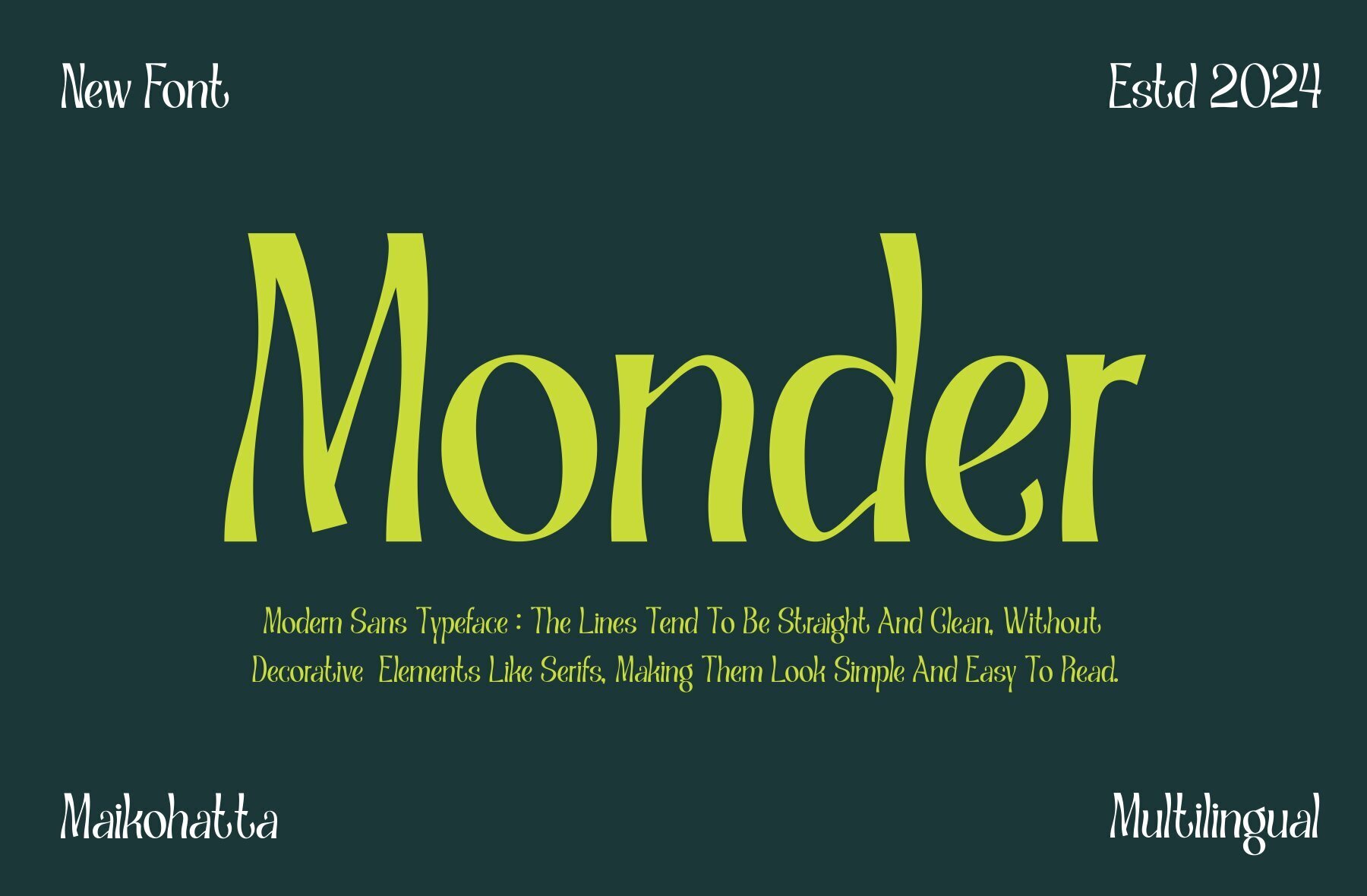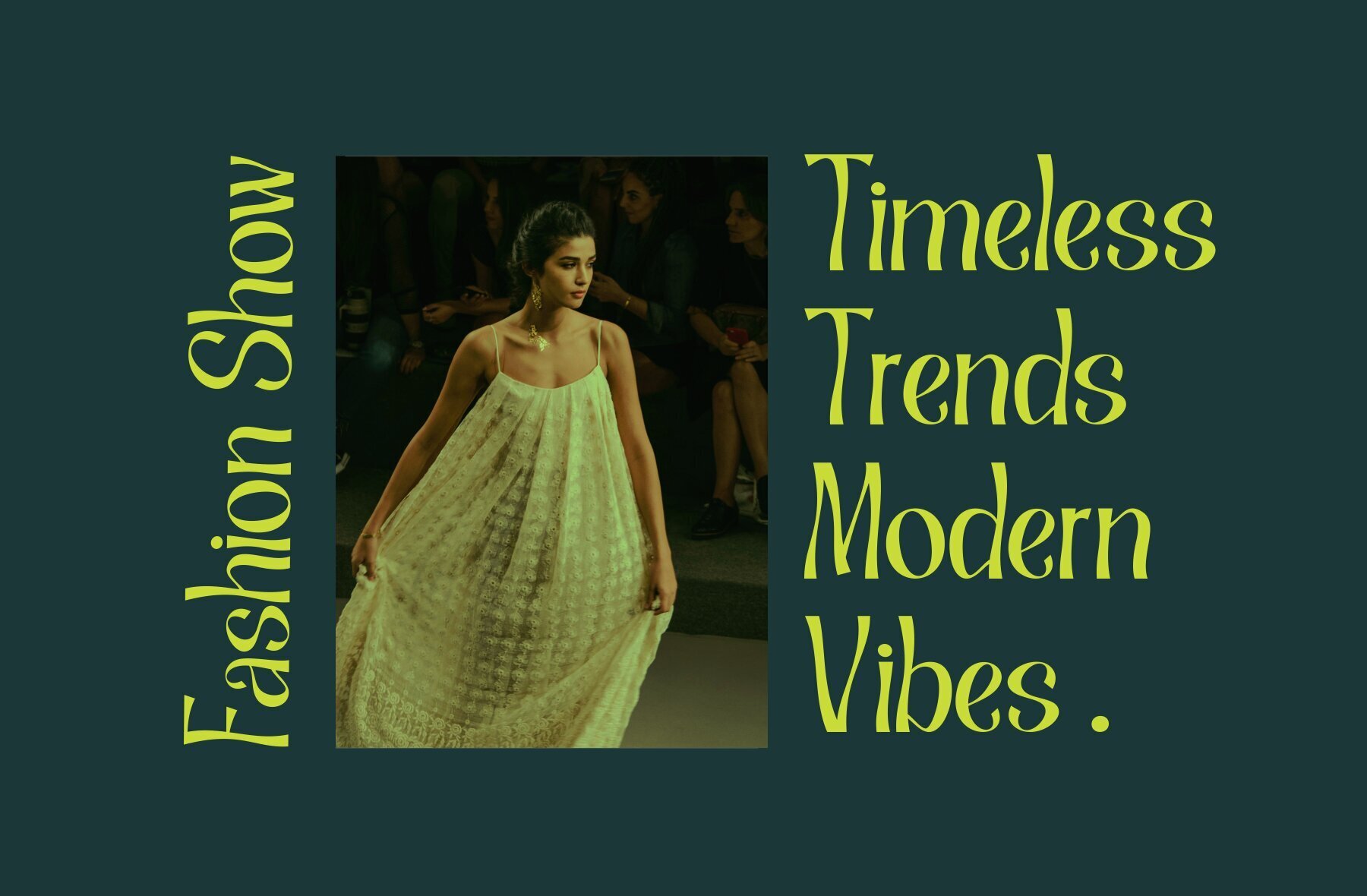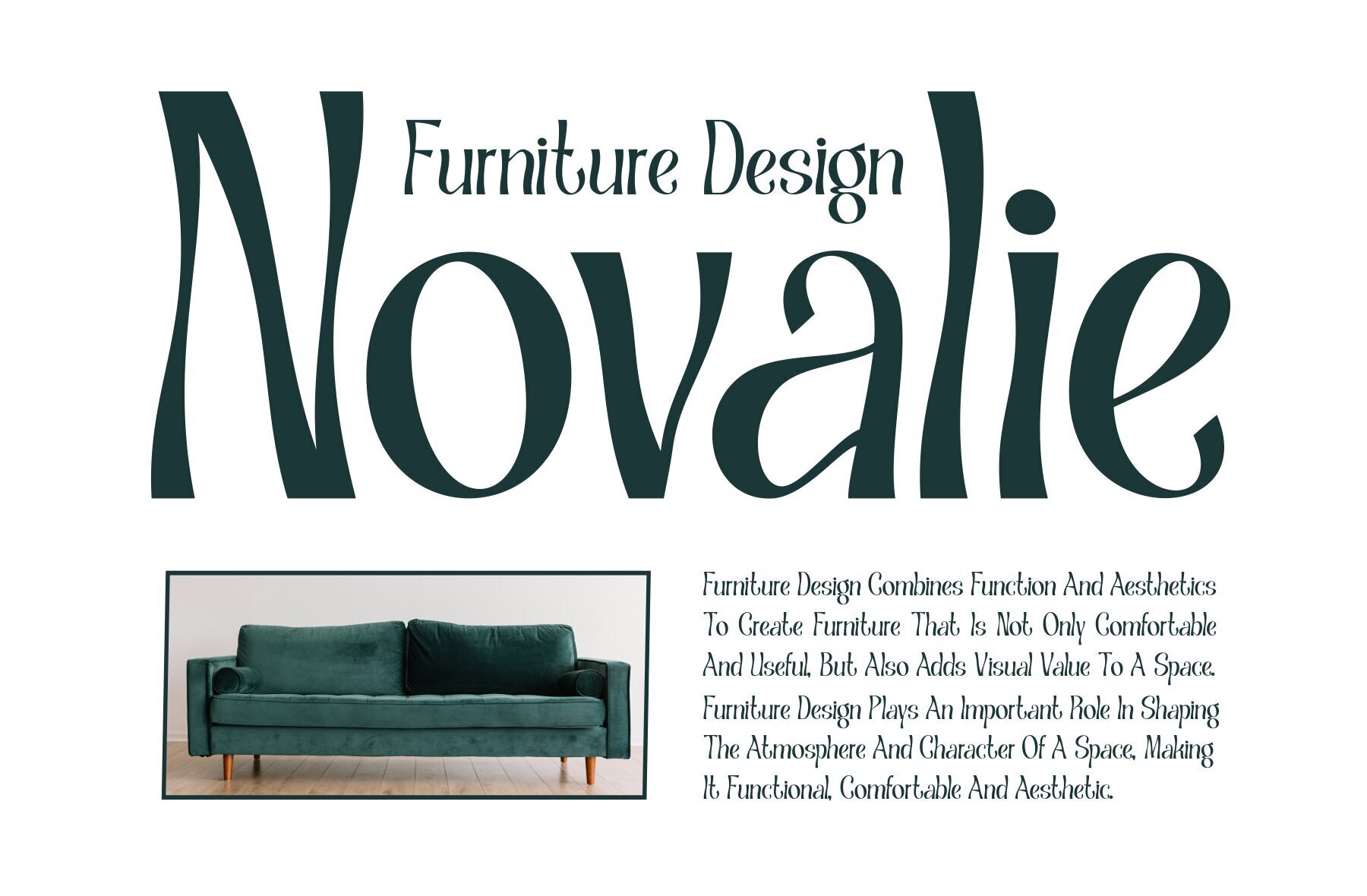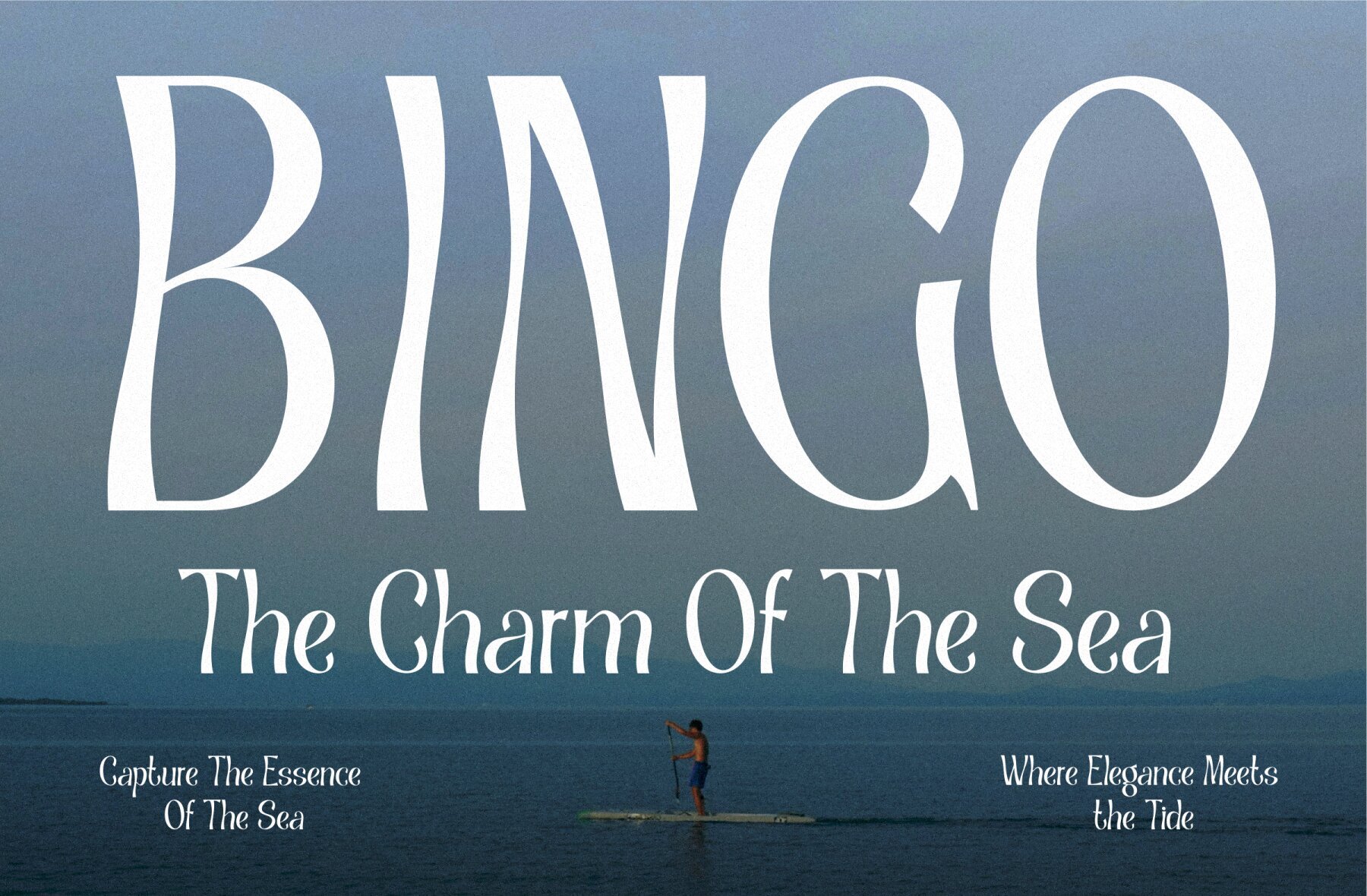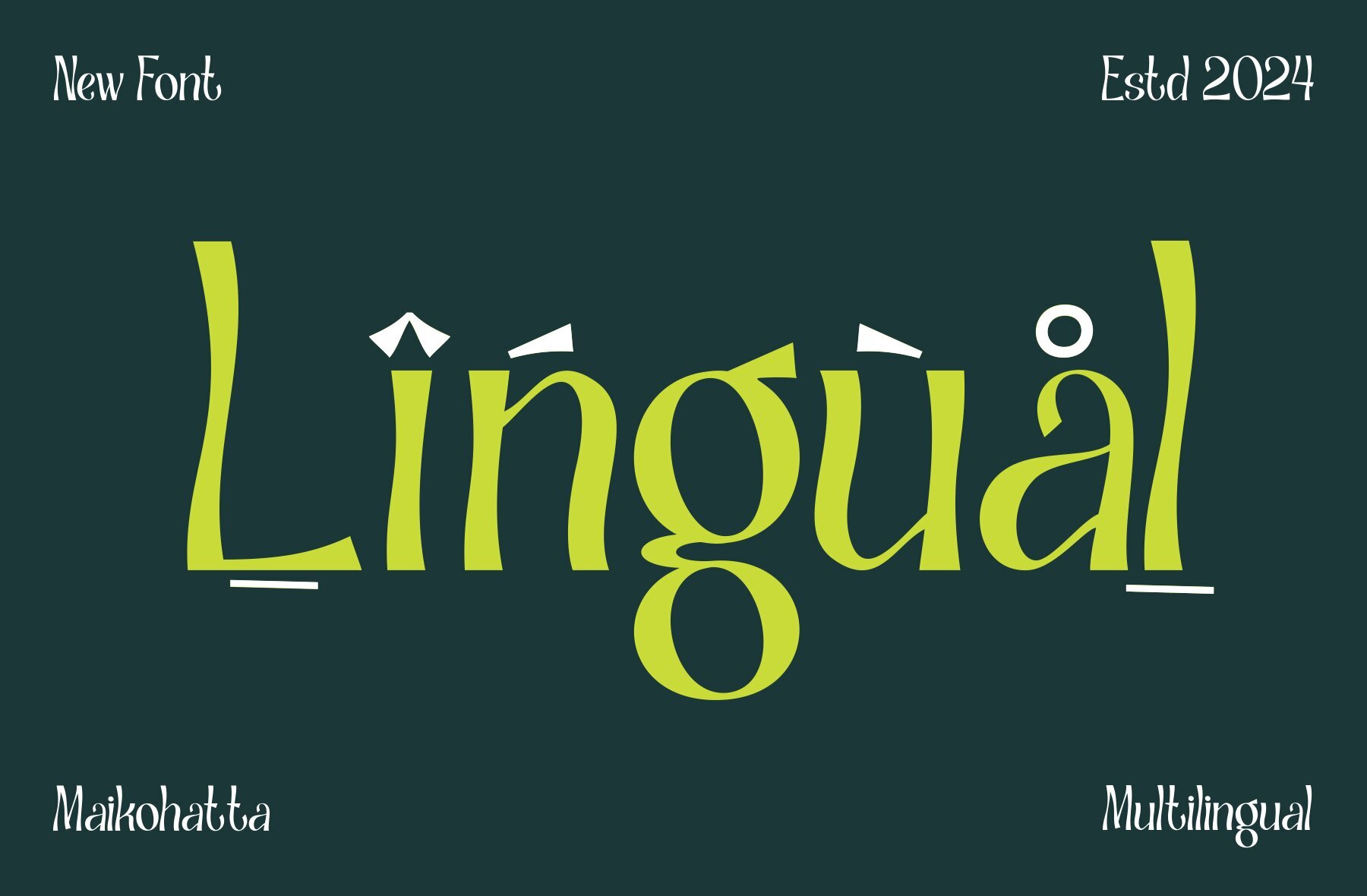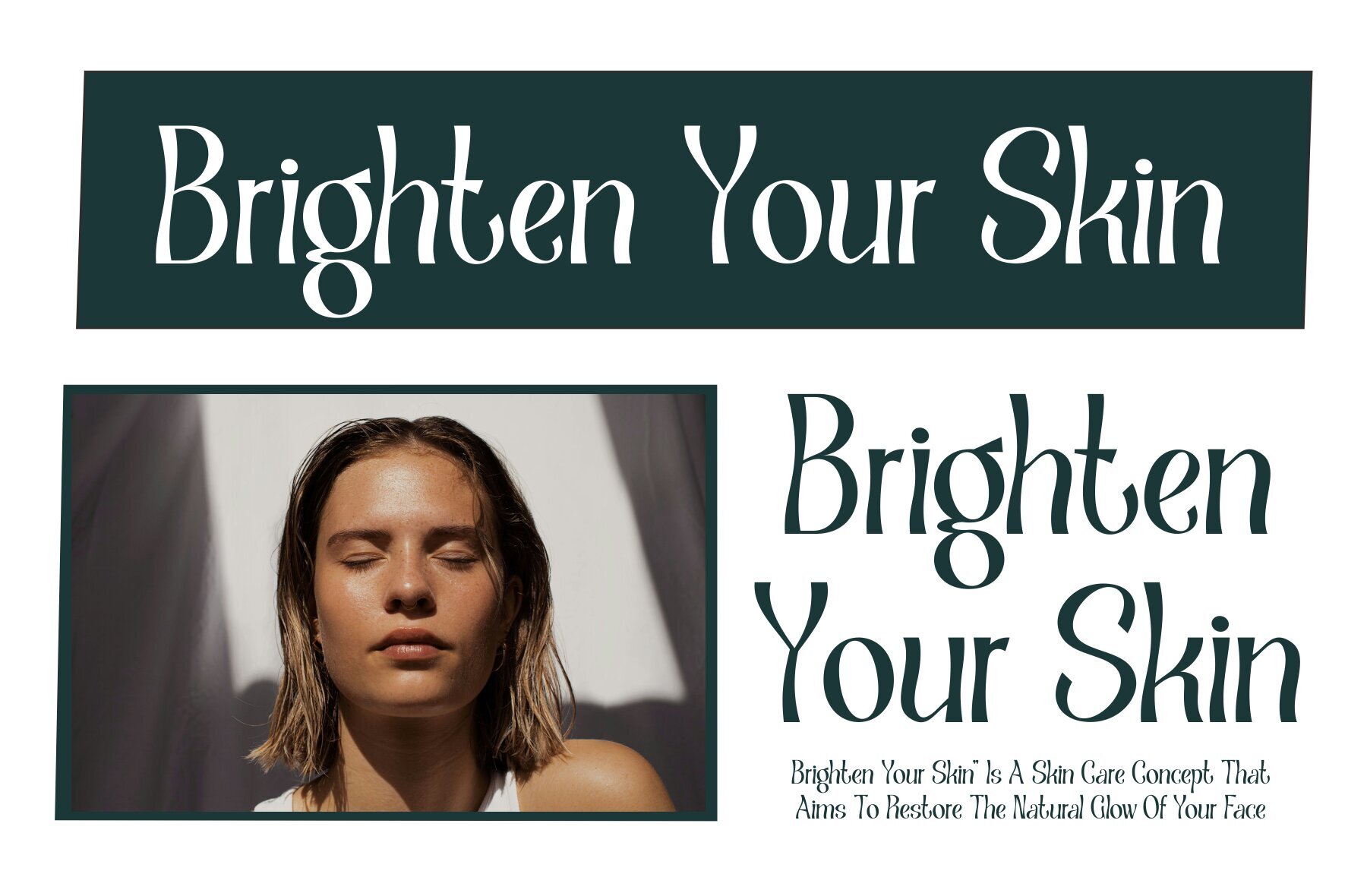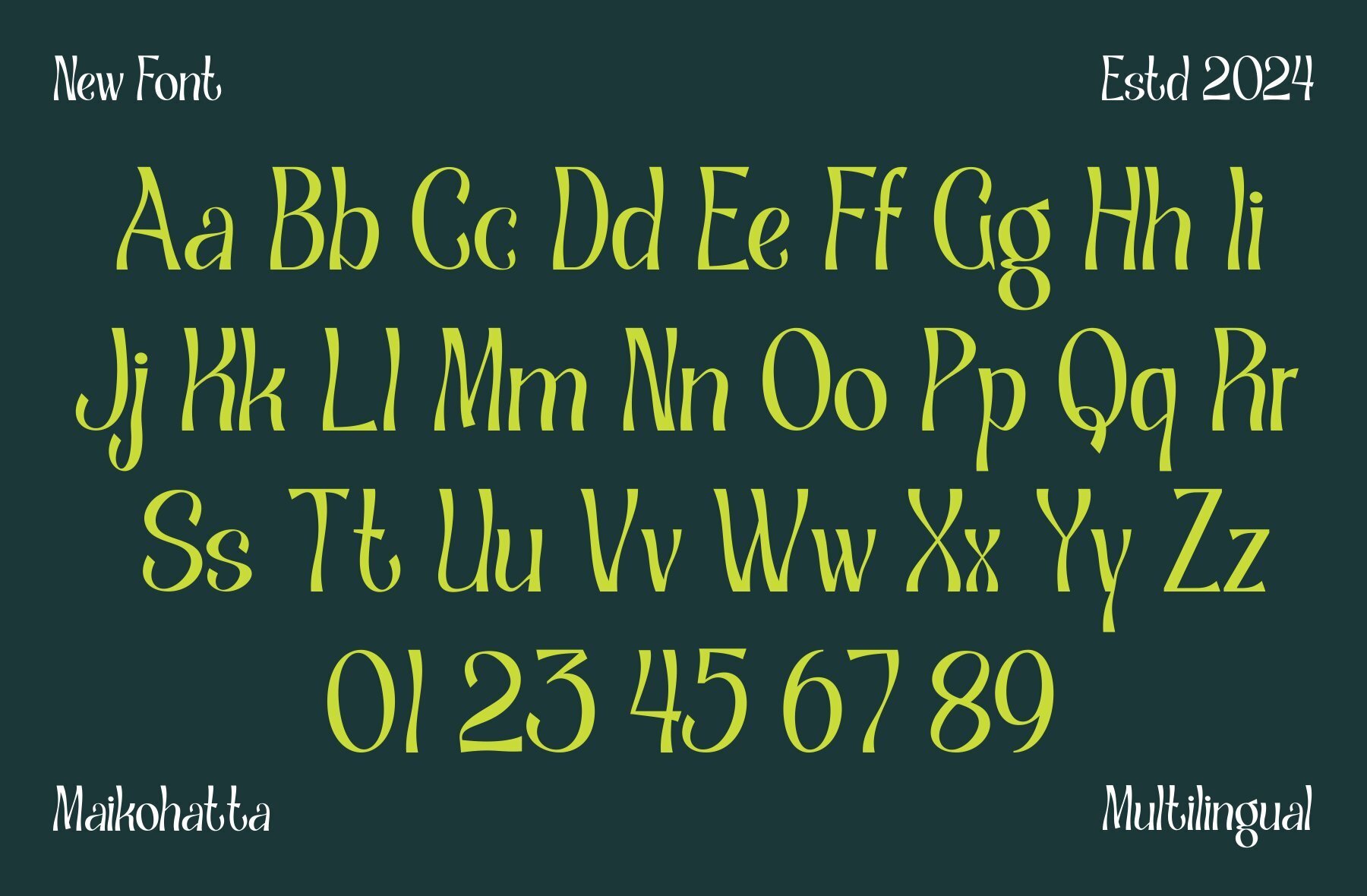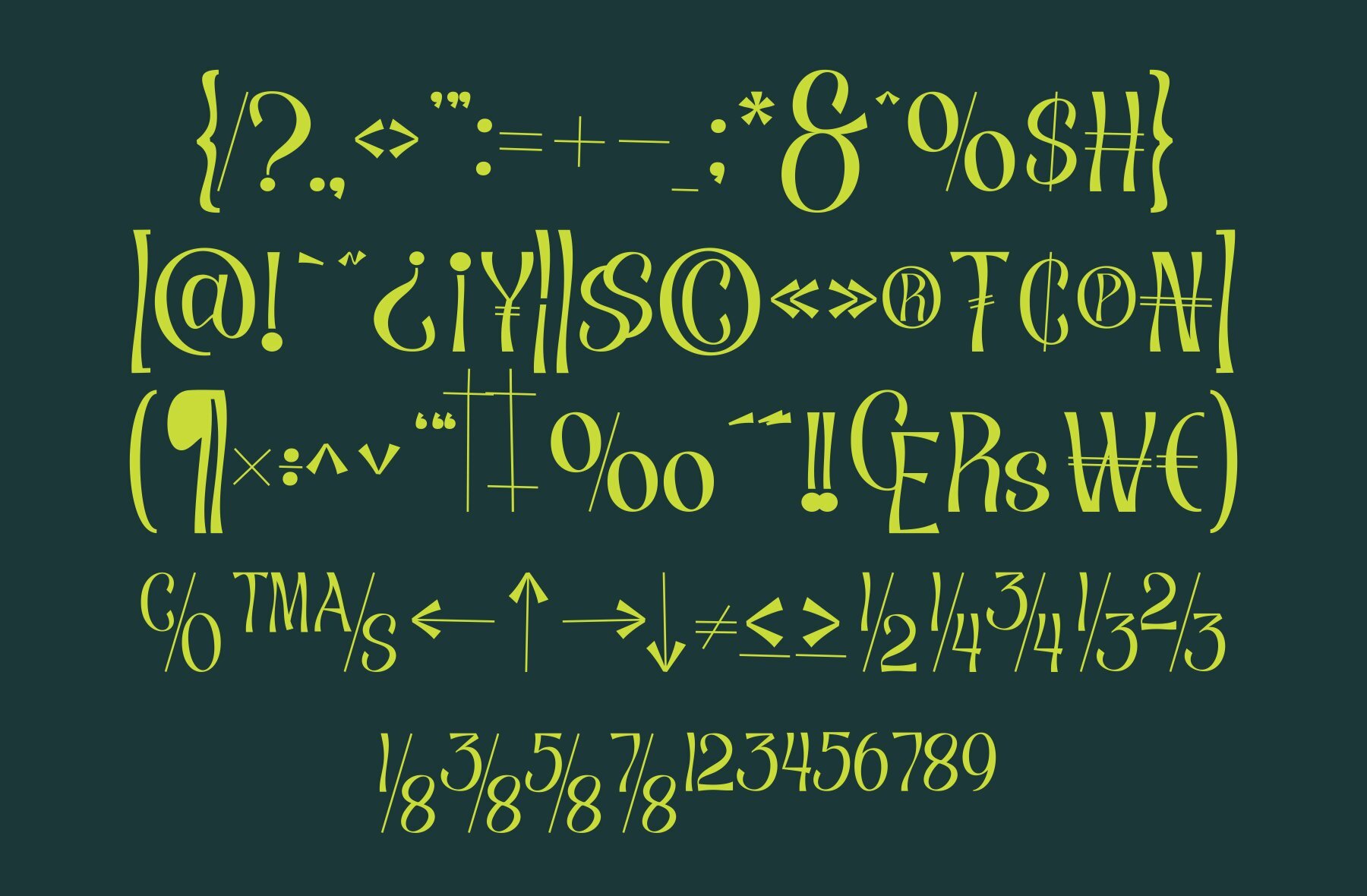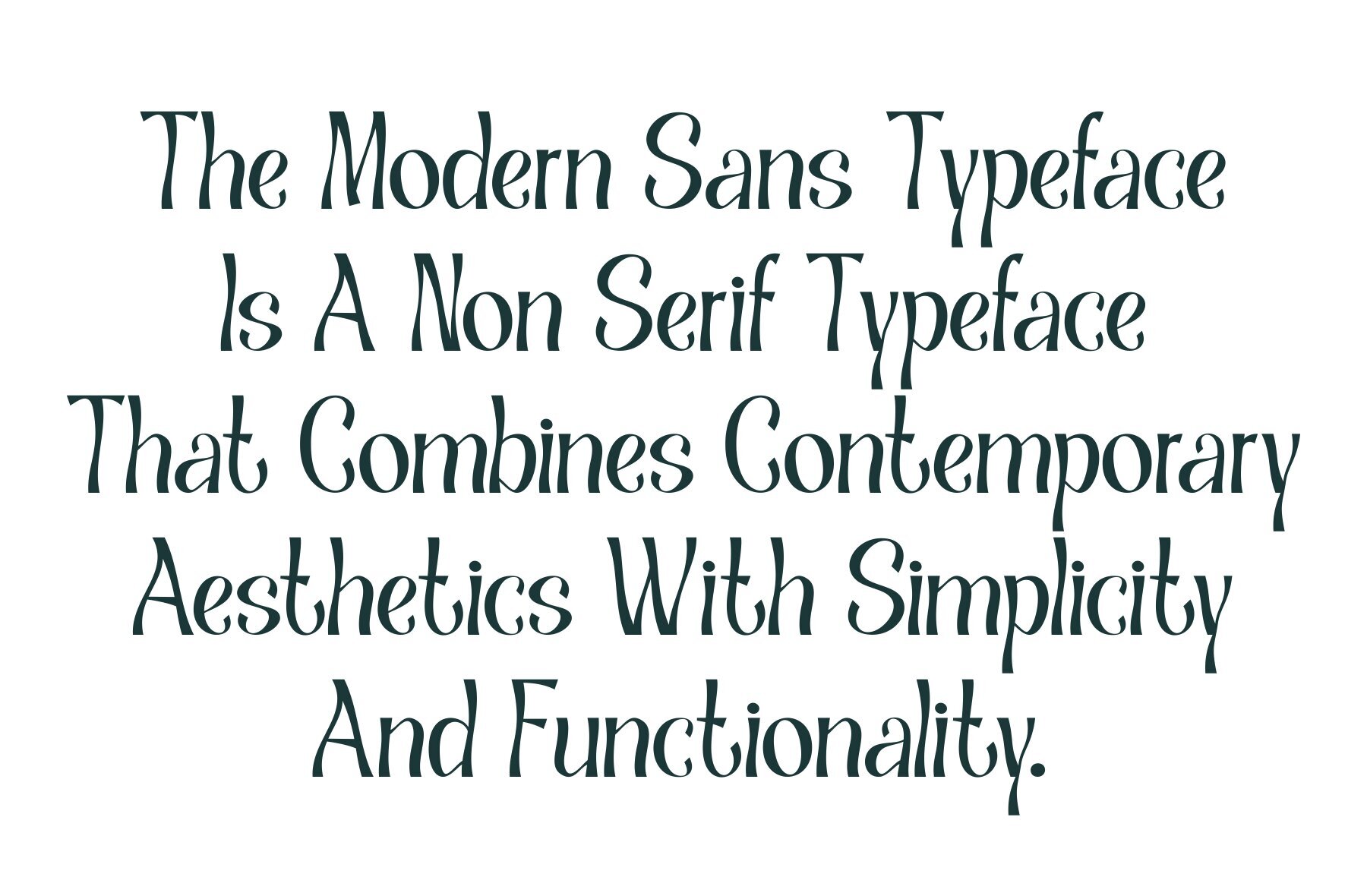
Monder Font
Monder Regular
Monder Modern Sans Serif Typeface offers a versatile and contemporary look, perfect for a variety of design contexts. This font is notable for its clean, professional aesthetics, making it an excellent choice for both graphic design and modern typography projects. Its simplicity and visual appeal enhance its suitability for creating eye-catching and readable text.
The typeface includes a full set of uppercase and lowercase letters, ensuring flexibility in design application. Additionally, it supports multiple languages, broadening its usability for international projects. Monder's modern design elements will provide a solid foundation for any creative endeavor, from brand identity to digital interfaces.